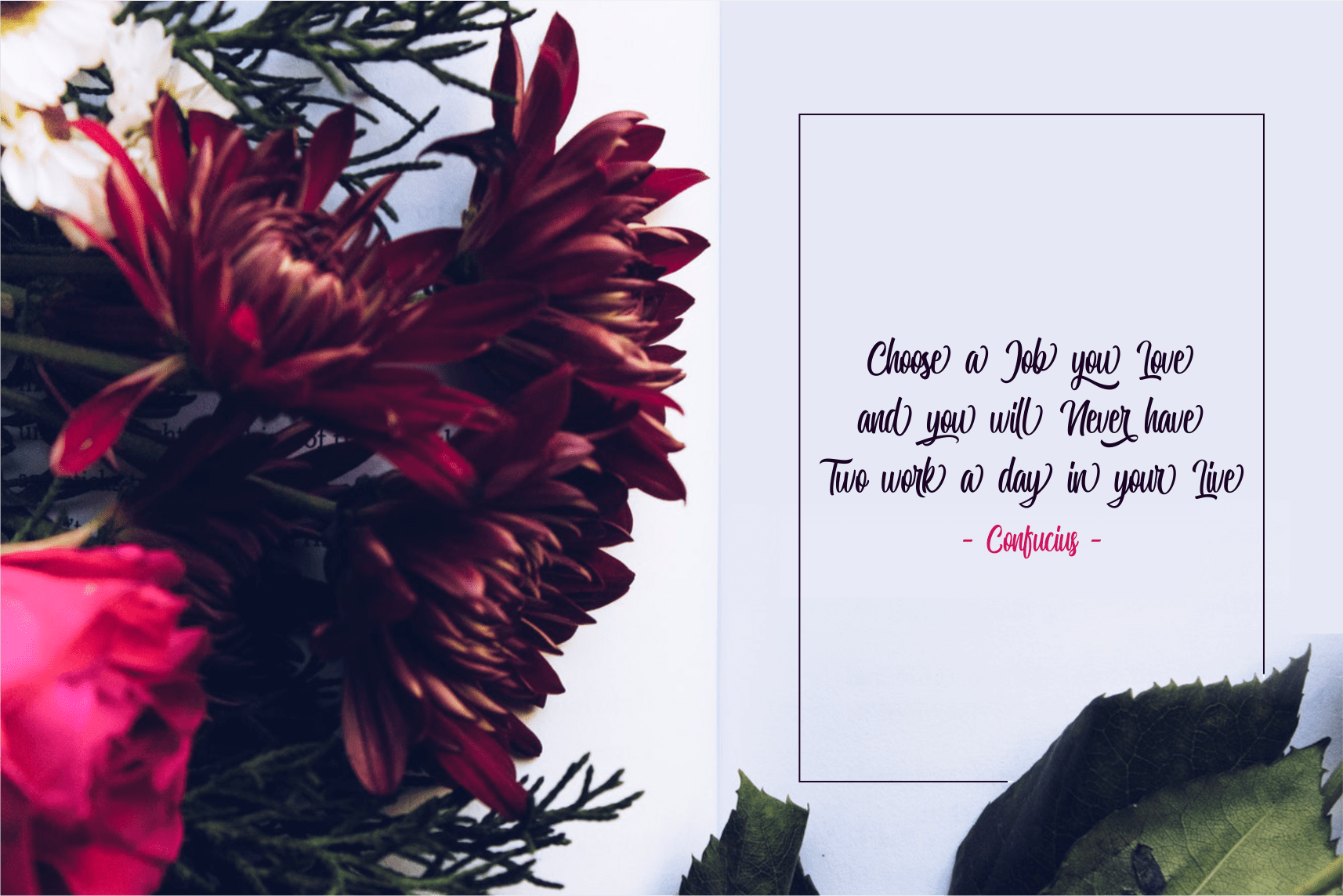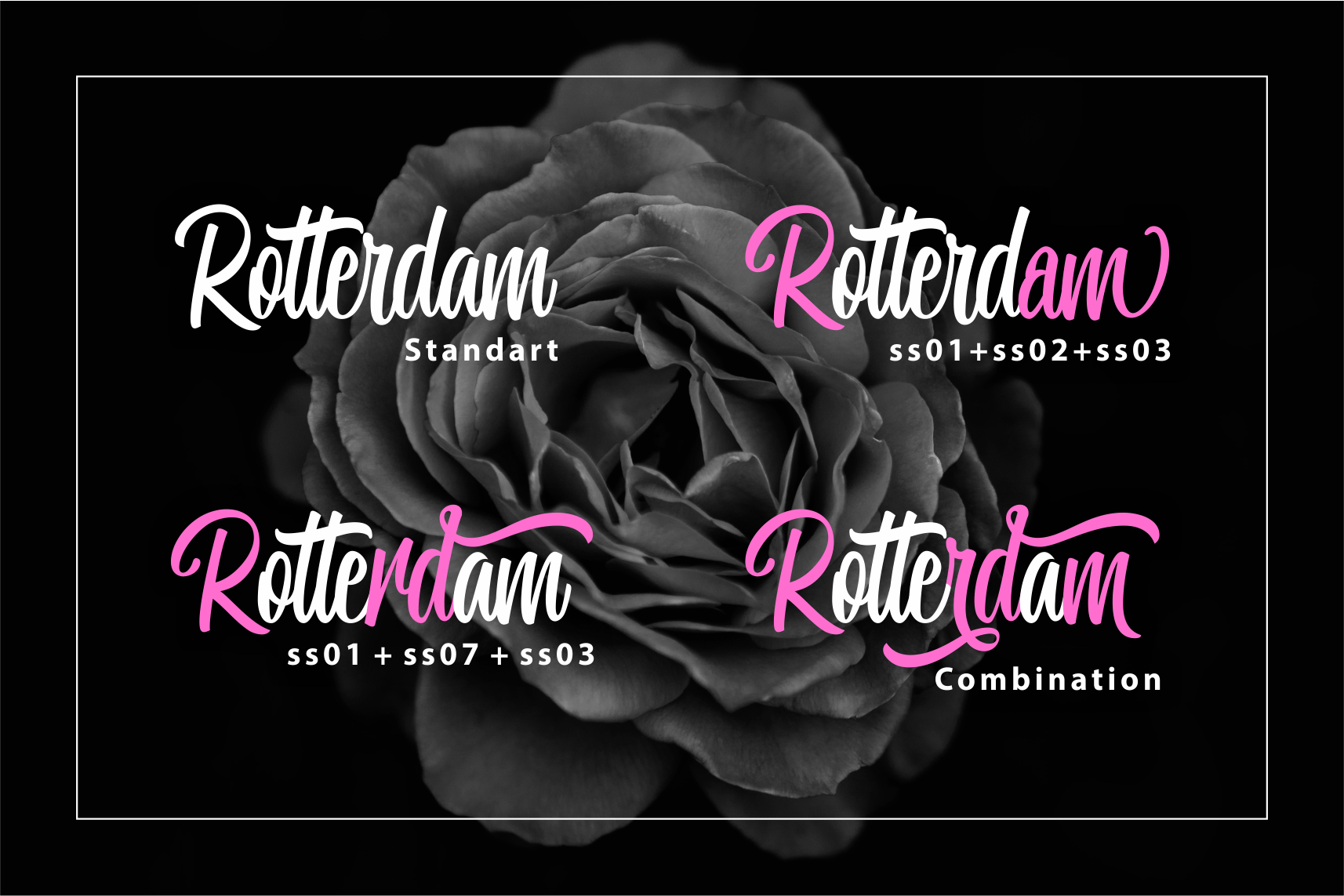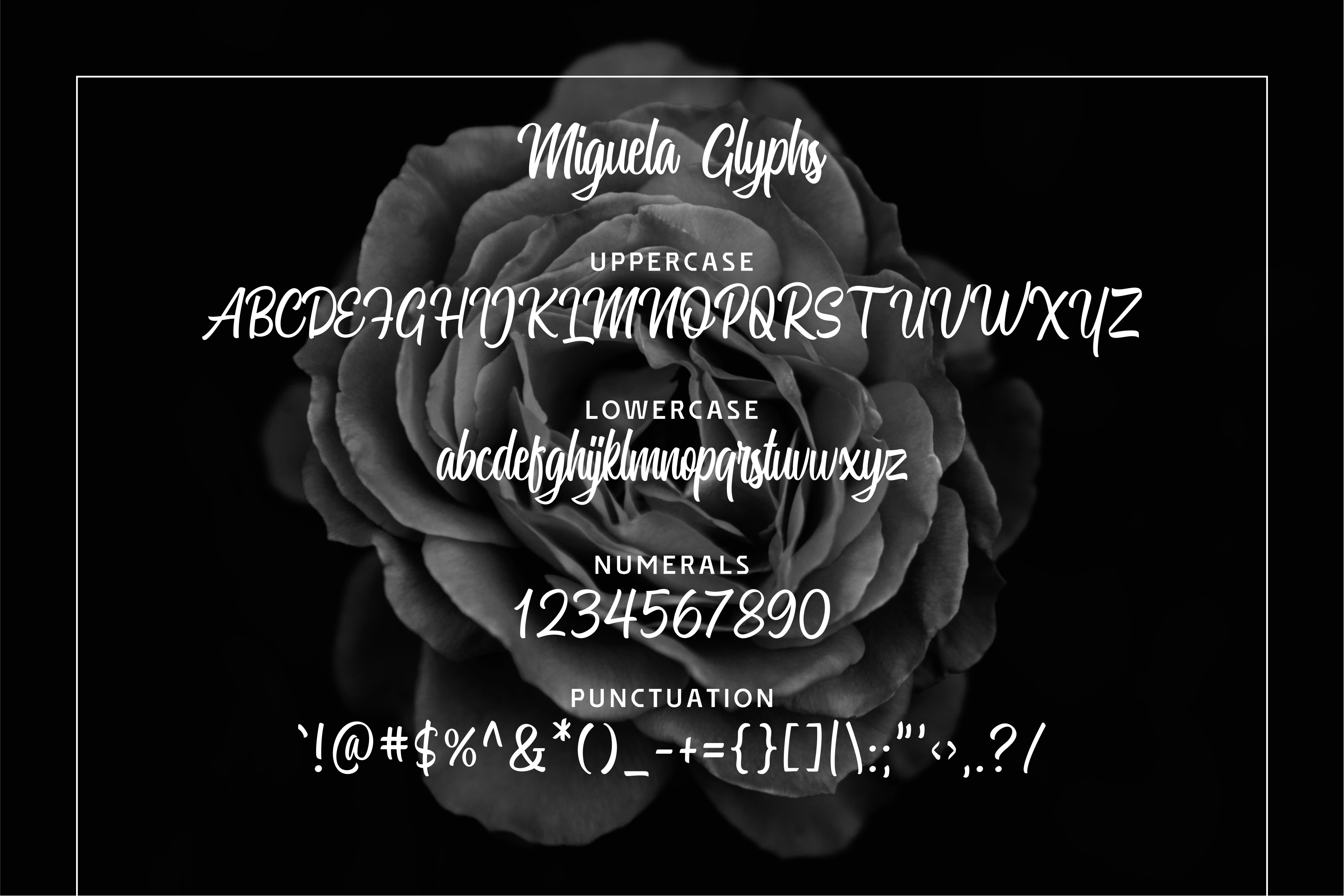
Miguela Script Font
Introducing Miguela, fresh Casual script font. Crafted carefully to show dynamic flow. It’s allowing you to create amazing lettering typography in an instant. You can use it this font for all your creative project such as Logotype, printed quotes, cards, product packaging, Letterhead, Poster, Apparel Design, and etc. Miguelacomes with uppercase, lowercase, punctuations, numerals, and so many variations on each character include OpenType alternates to help you customize your designs.